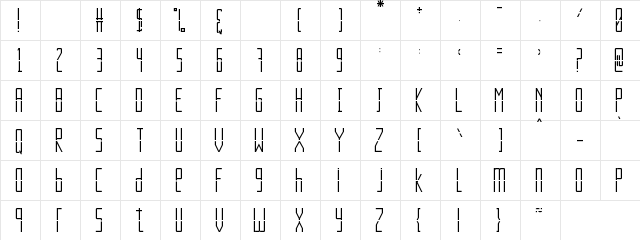
Fest Condensed Regular
Design Context for Fest Condensed Typeface
Fest Condensed is a composed and adaptable typeface that performs quietly and consistently across a wide range of design contexts. The condensed width makes it efficient for tight spaces without sacrificing legibility.